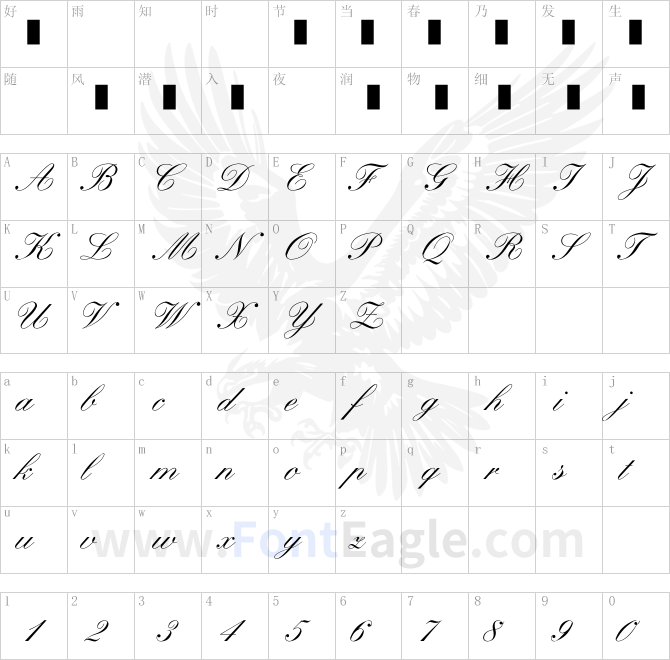
- Font name:EU-HT
EU-HT is a great font, widely used in graphic design, single-page menu design, poster design and other fields, and is deeply loved by designers.EU-HT download.